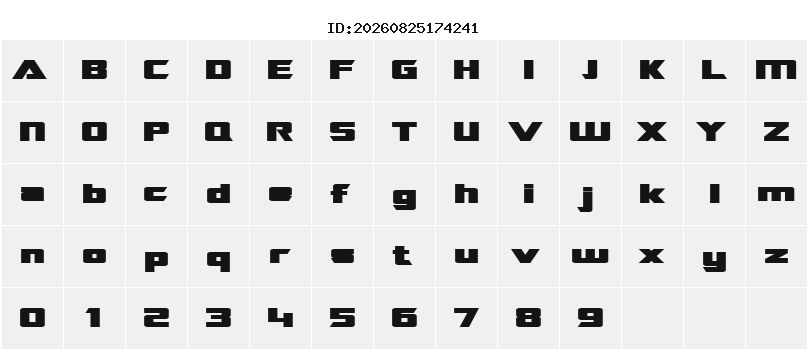
About SF TransRobotics Extended.ttf
SF TransRobotics Extended.ttf is a modern, elegant sans-serif font designed for ultimate readability and visual harmony. Perfect for branding, headlines, web design, and print materials.